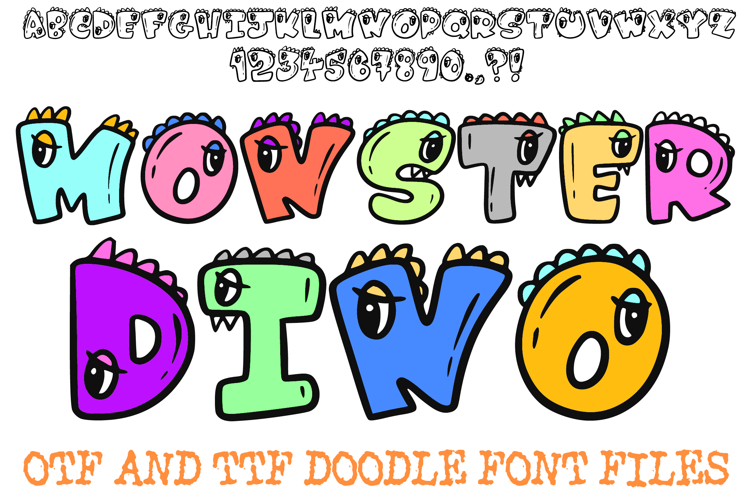
Monster Dino Doodle Font Lettering Bubble Cartoon ABC OTF
Unleash the fun with the Monster Dino Doodle Font! This hand-drawn display alphabet features bubbly characters brought to life with adorable cartoon eyes, tiny fangs, and prehistoric spikes. It is the perfect choice for high-energy children's branding, whimsical party invitations, educational posters, and any creative project that needs a friendly monster touch.
The unique, animated personality of each character ensures your headlines grab attention while maintaining a playful, artisan feel. Whether you're designing for a dinosaur-themed birthday, quirky classroom decor, or creative digital scrapbooking, the Monster Dino Doodle Font delivers a professional, whimsical look that stands out.
Animated Character Details: Every character features unique cartoon eyes, teeth, and spikes that give them a distinct personality.
Bubbly Cartoon Silhouette: The thick, rounded block style ensures maximum readability for headlines and logos, even with the detailed monster features.
Versatile Artisan Feel: The hand-drawn aesthetic gives your text an authentic touch, avoiding the stiffness of standard digital fonts.